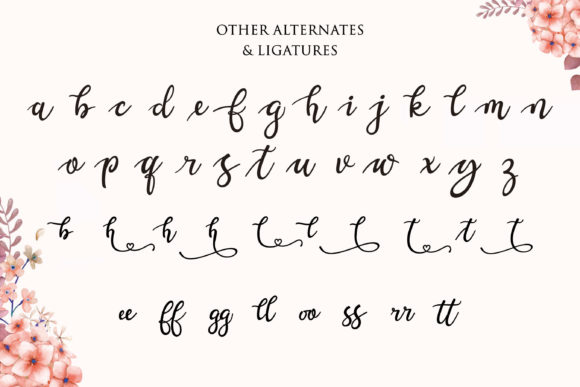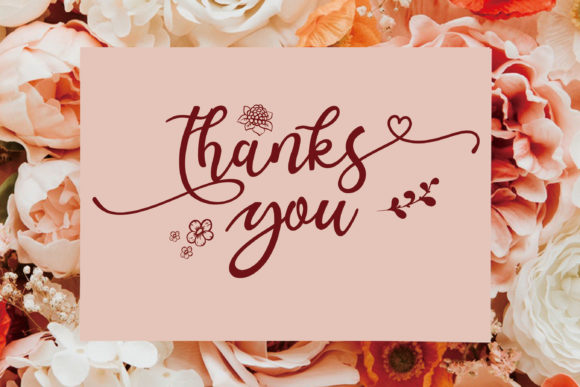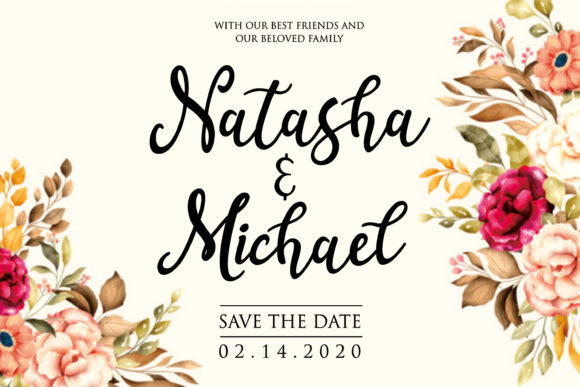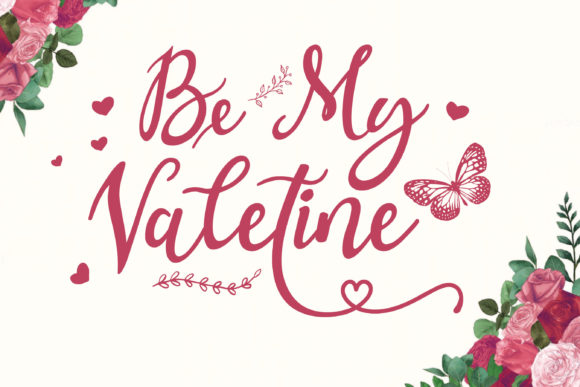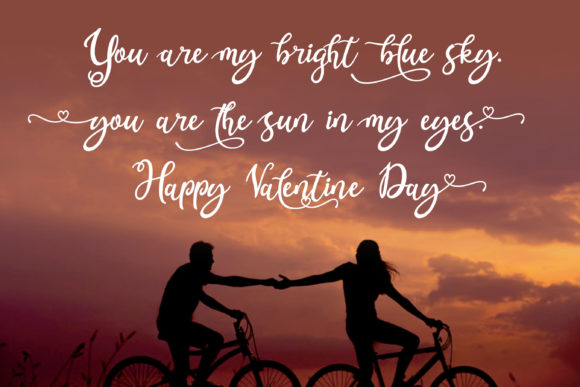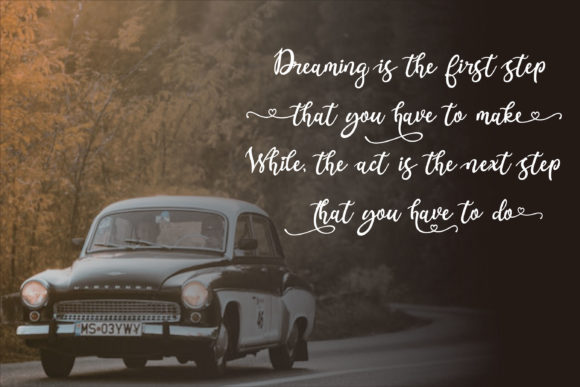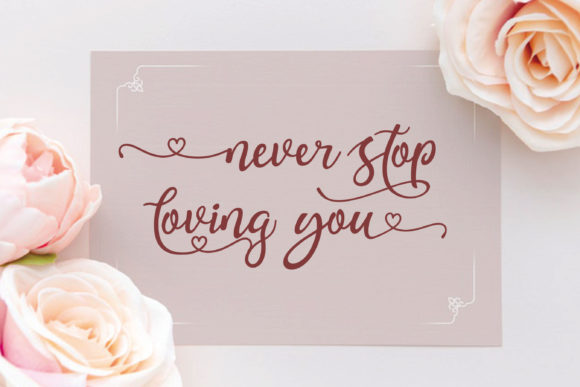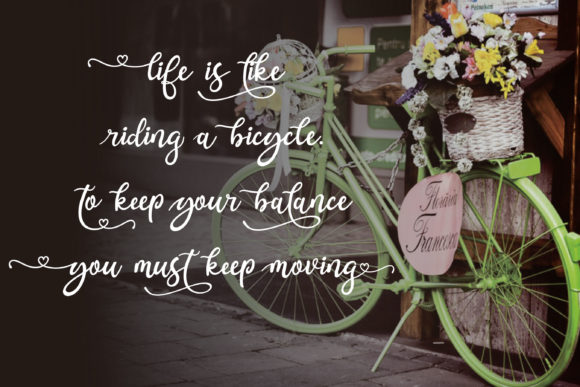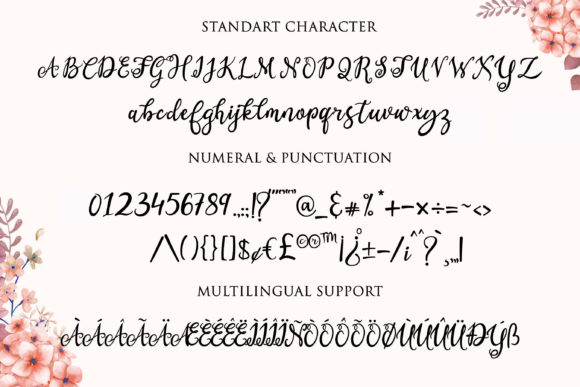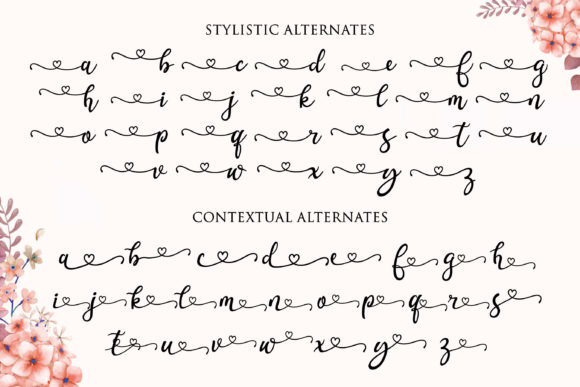
Valentina Font
About Valentina Font
As it’s name implies, Valentina is a charming, romantic font – perfect for weddings, Valentine’s Day and anniversary celebrations. It is packed with gorgeous heart swashes, elegant curls and twirls, and stunning ligatures.